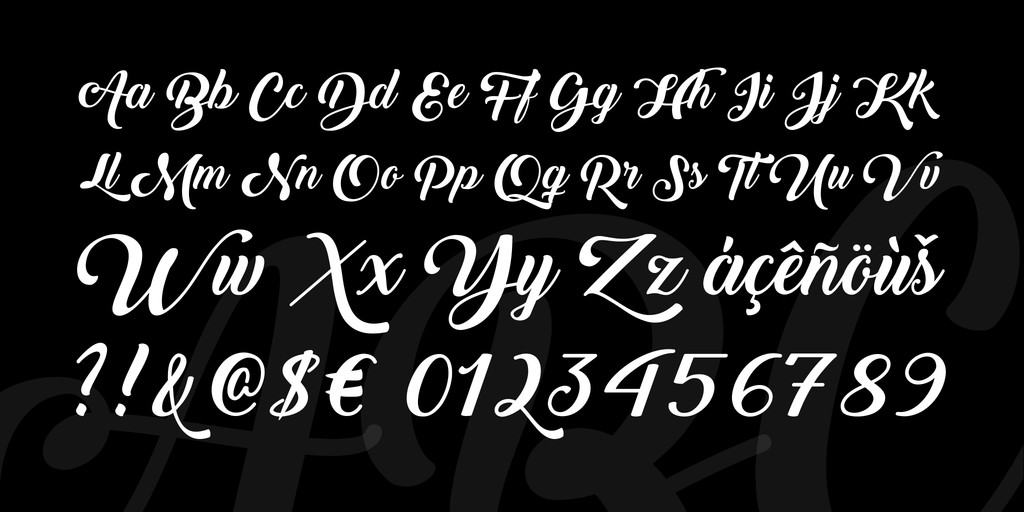
back to black
Explore the Stylish Back to Black Font
Back to Black, crafted by renowned designer John Smith in 2023, represents a perfect blend of modern aesthetics and usability. This contemporary font features clean lines and a unique character set, making it suitable for a variety of design projects, including branding, websites, and promotional materials. Its stylish yet neutral appearance ensures it can complement any design direction.
The Creative Vision Behind Back to Black Font
Inspired by urban culture and minimalist design, Back to Black was developed with the modern user in mind. John Smith’s vision was to create a font that resonates with contemporary lifestyles while maintaining legibility and versatility. Each letter showcases precision and thoughtfulness, appealing to a broad audience who appreciate subtle elegance in typographic choices.
Ideal Uses for Back to Black Font
Back to Black is perfect for applications where clarity and style are paramount. Use it for branding projects, digital marketing campaigns, and in print media such as brochures and posters. Its fresh vibe makes it suitable for use in both fashion-related designs and tech-oriented branding, providing a unique touch that stands out in any setting.